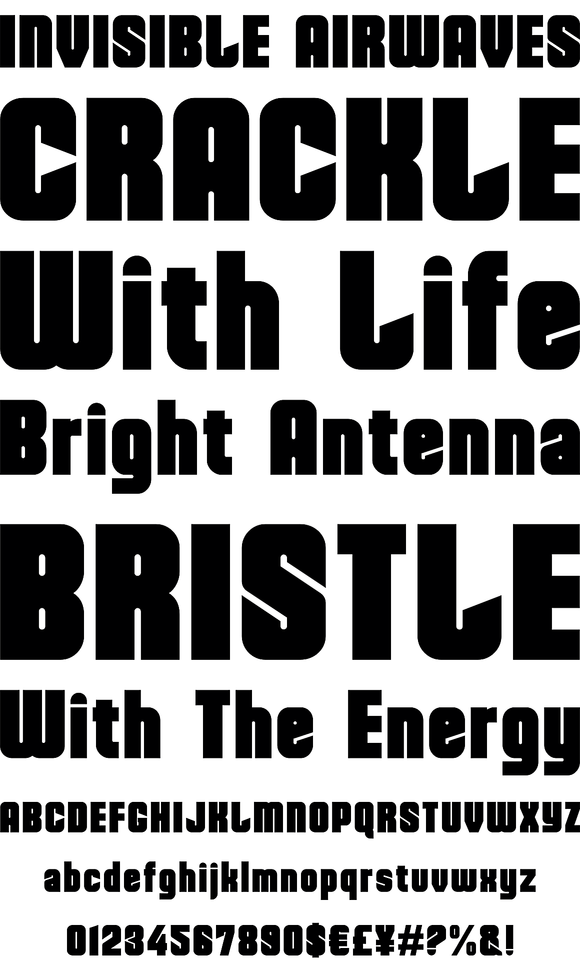
A bold display typeface that blends subtle curves with precision geometry. This crafted detailing creates a wide variety of typesetting options ideal for use on signage, book jackets, packaging, posters and t-shirts. Details include 4 unique styles, a full character set, manually edited kerning and Euro symbol.